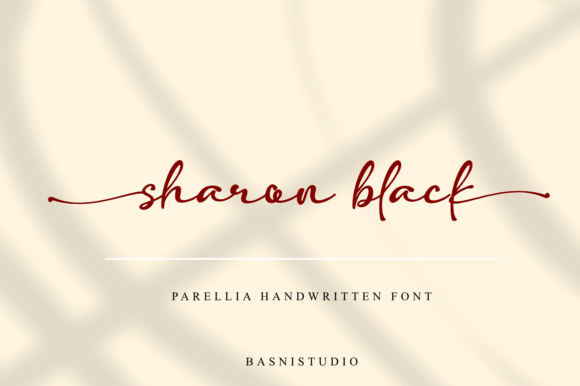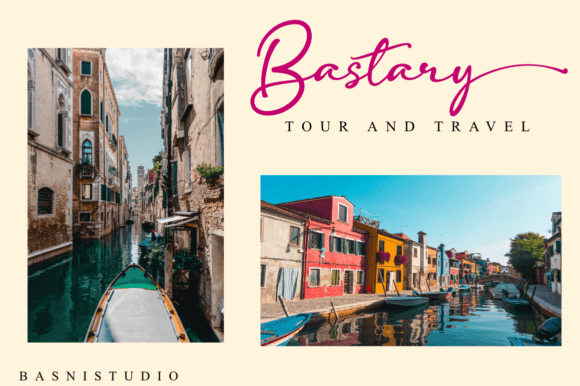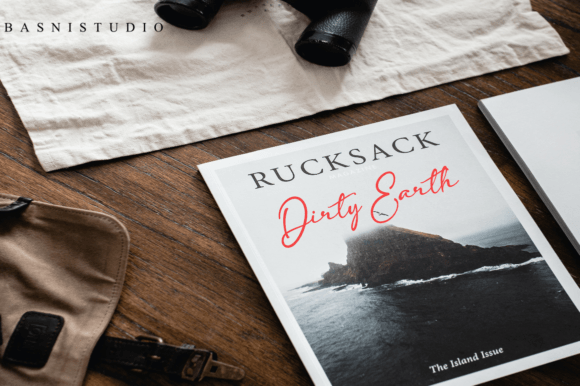
Introduction to Parellia Font
Add a touch of luxury to your designs with our exquisite and deluxe handwritten font.
Parellia is featuring elegant, swirling strokes and a sophisticated style, it’s perfect for high-end brands, upscale events, and premium products Impress your audience and elevate your message with this refined font choice.
Key Features of Parellia Font
Why Choose Parellia Font?
Parellia Font offers exceptional quality and versatility, making it a valuable addition to your design toolkit. Whether you’re creating for personal projects or commercial use, Parellia Font delivers professional results.